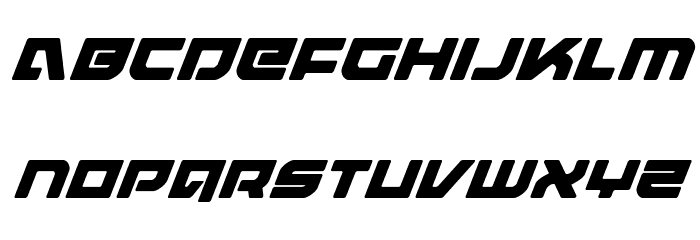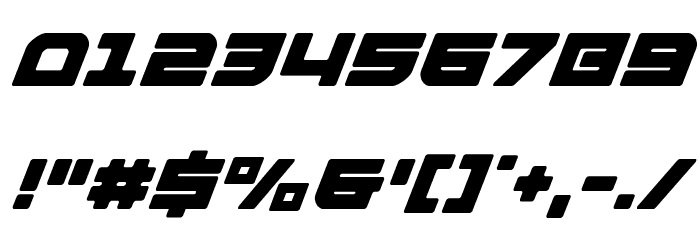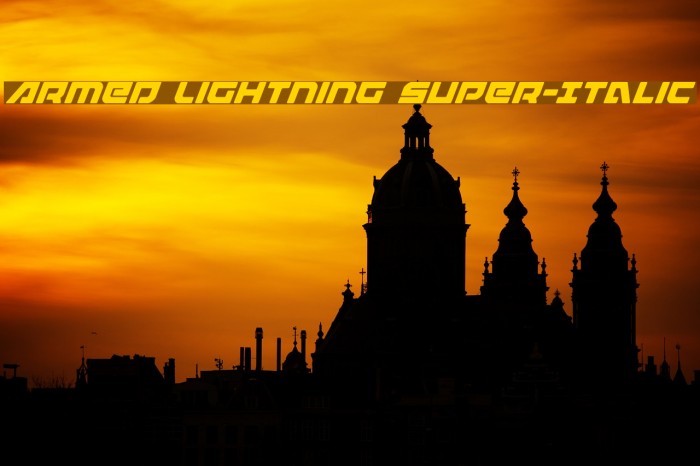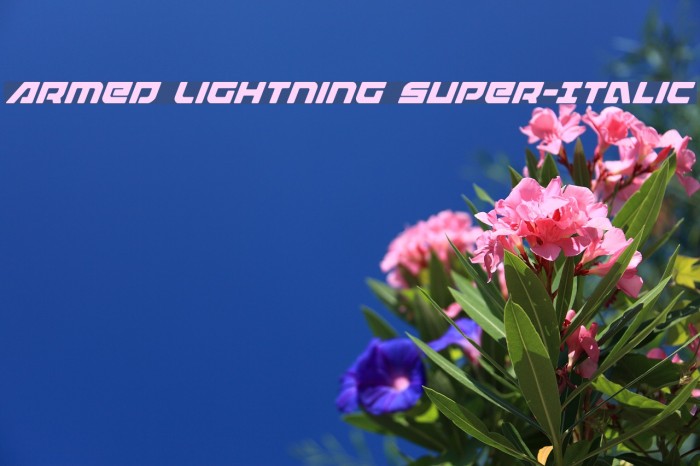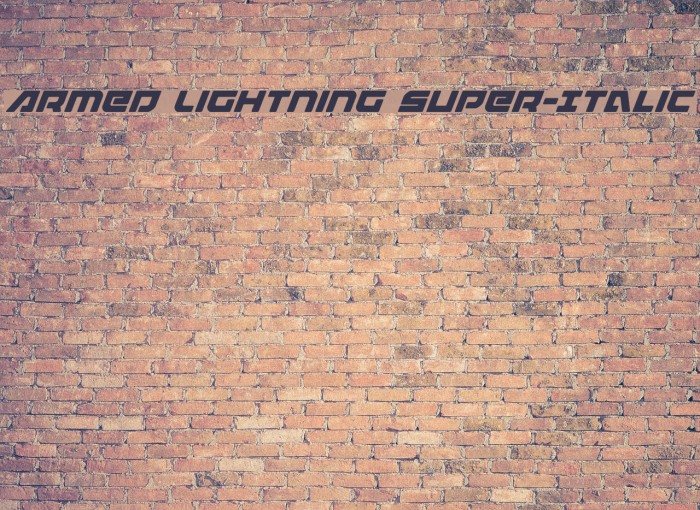
Armed Lightning Super-Italic Font
This font features a bold, italicized style with a futuristic and dynamic appearance. The characters are sharply angled, giving a sense of speed and movement. The uppercase and lowercase letters maintain a consistent slant, enhancing the italic effect. The numbers and special characters follow the same design principles, ensuring uniformity across all glyphs. The overall design is sleek and modern, making it suitable for projects that require a strong, impactful visual presence.
- Proposed Projects: Ideal for sports branding, automotive advertisements, video game titles, and tech-related logos.